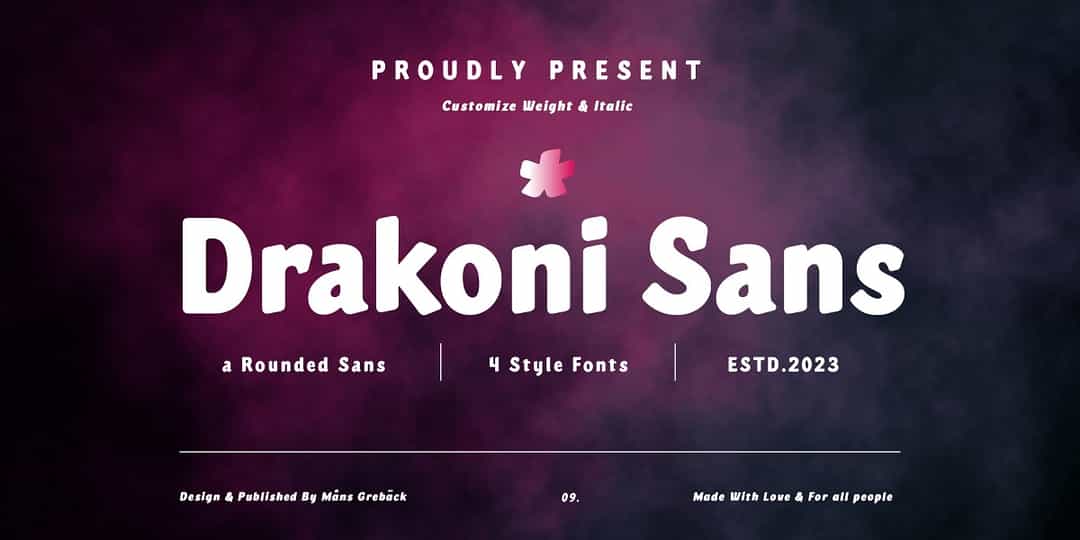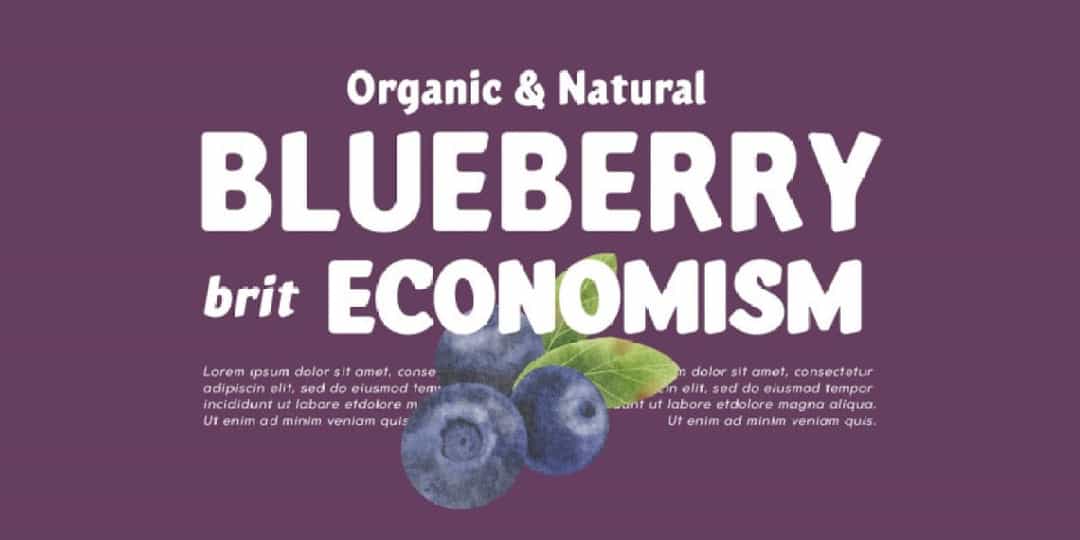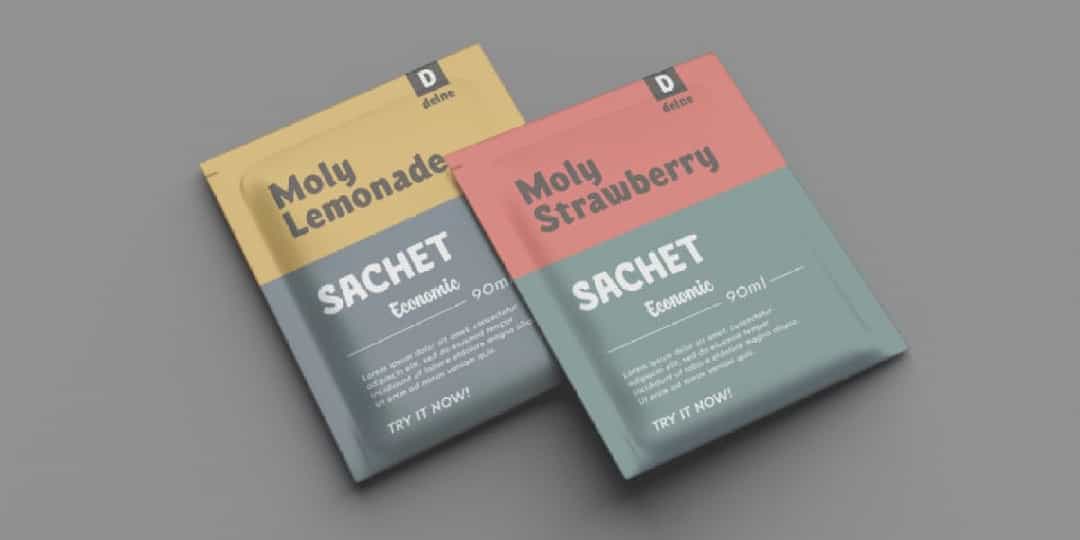
Drakoni Sans is an aggressive yet round font with a modernistic style. Its crisp lines and soft curves lend it an anthropocentric aesthetic, making it suitable for use across different genres and styles. It was inspired by comic book headlines when designing it.